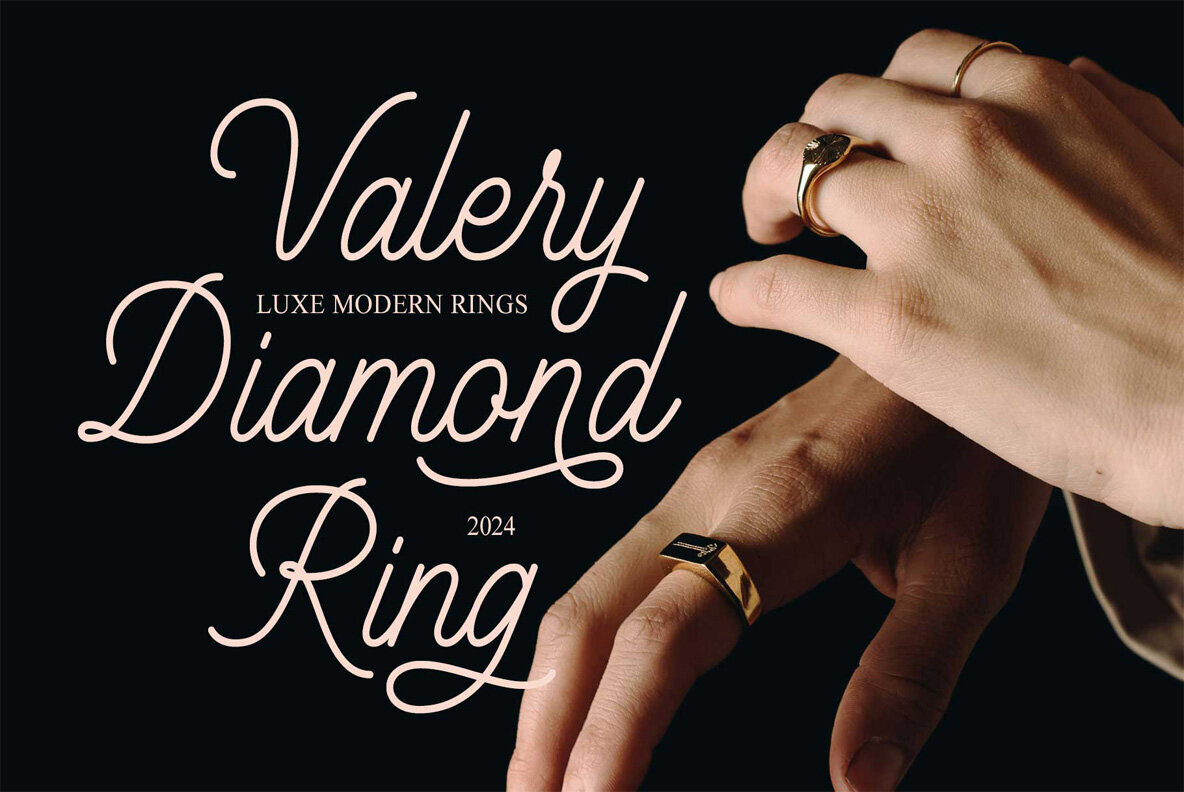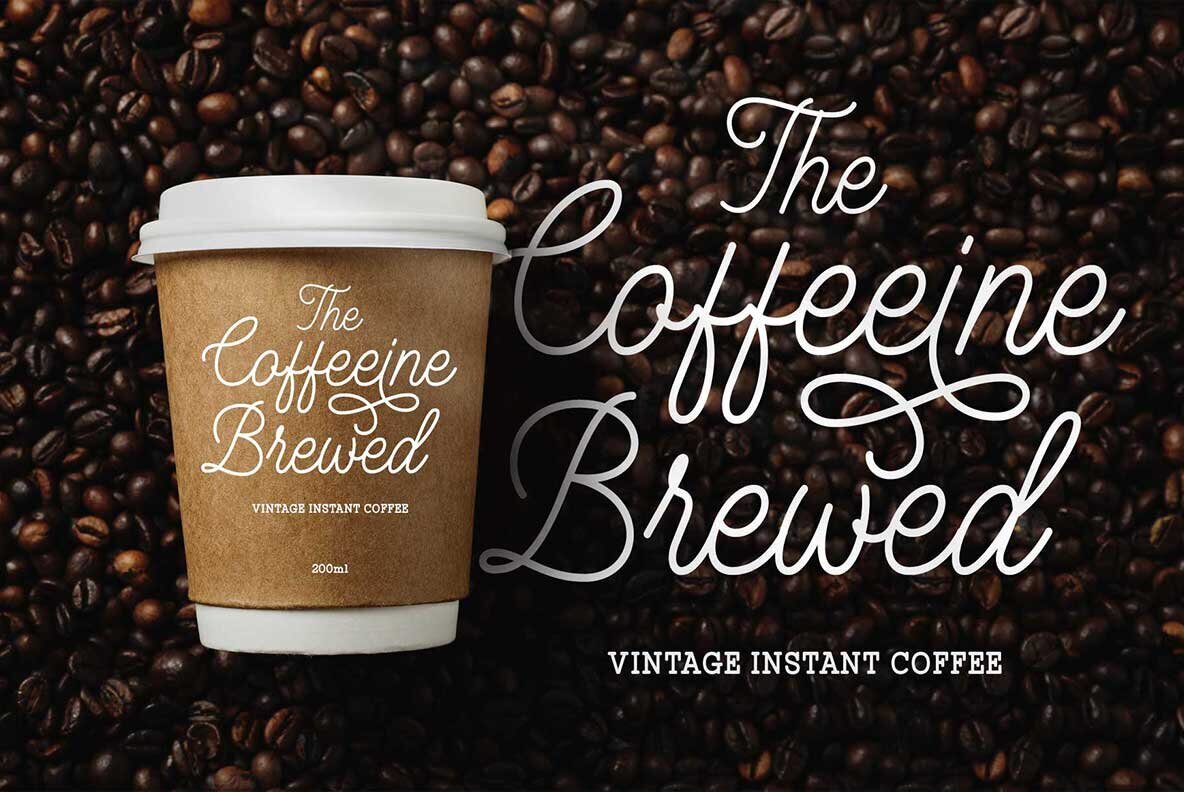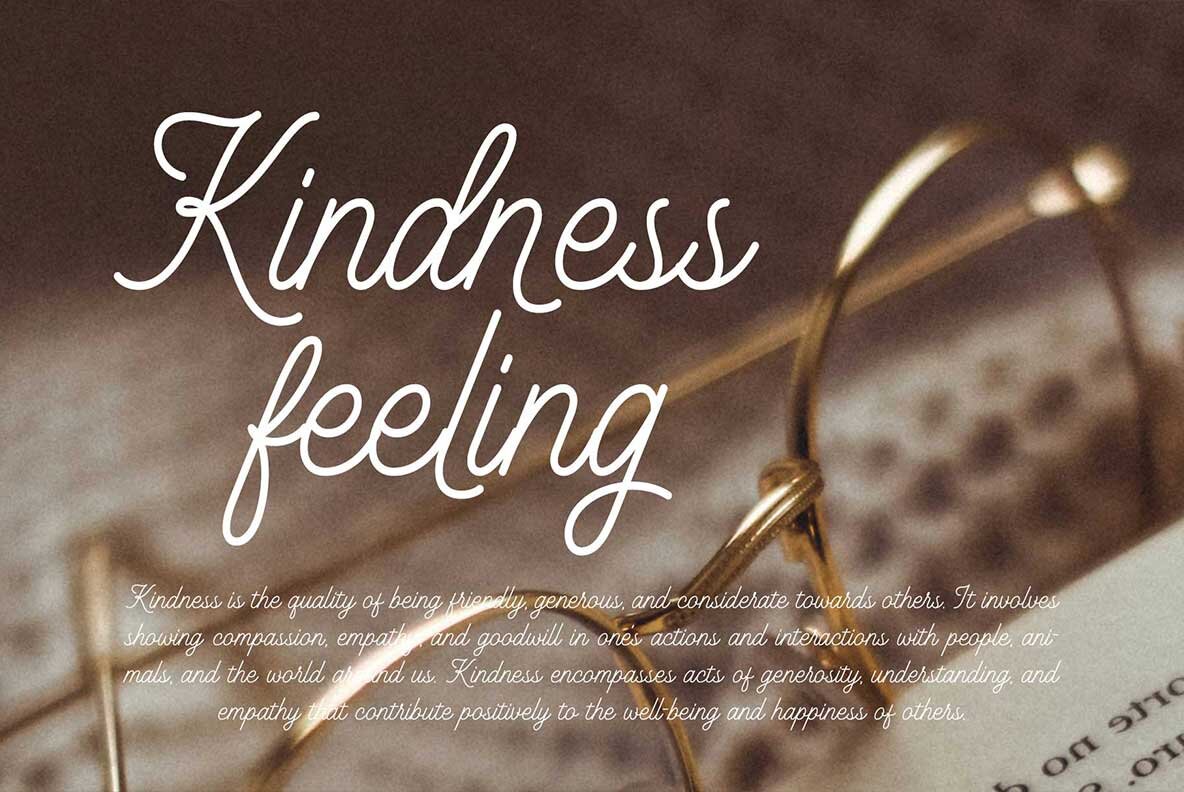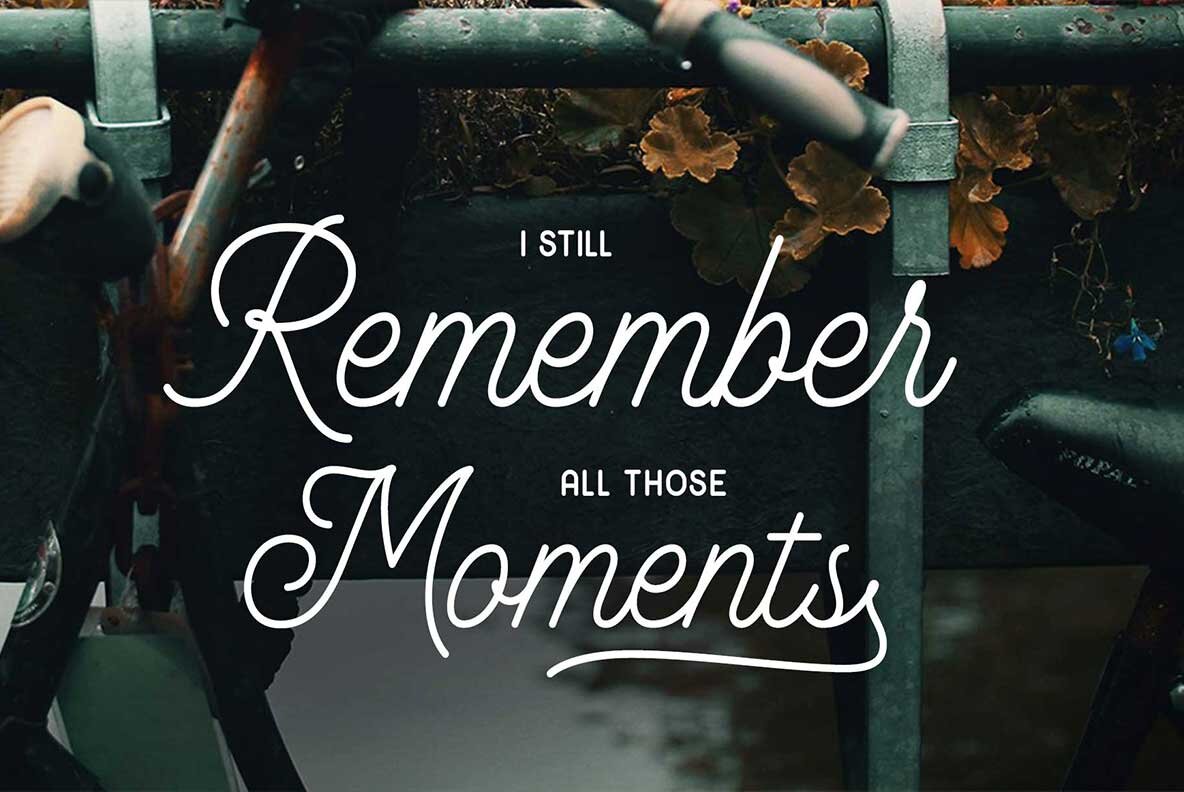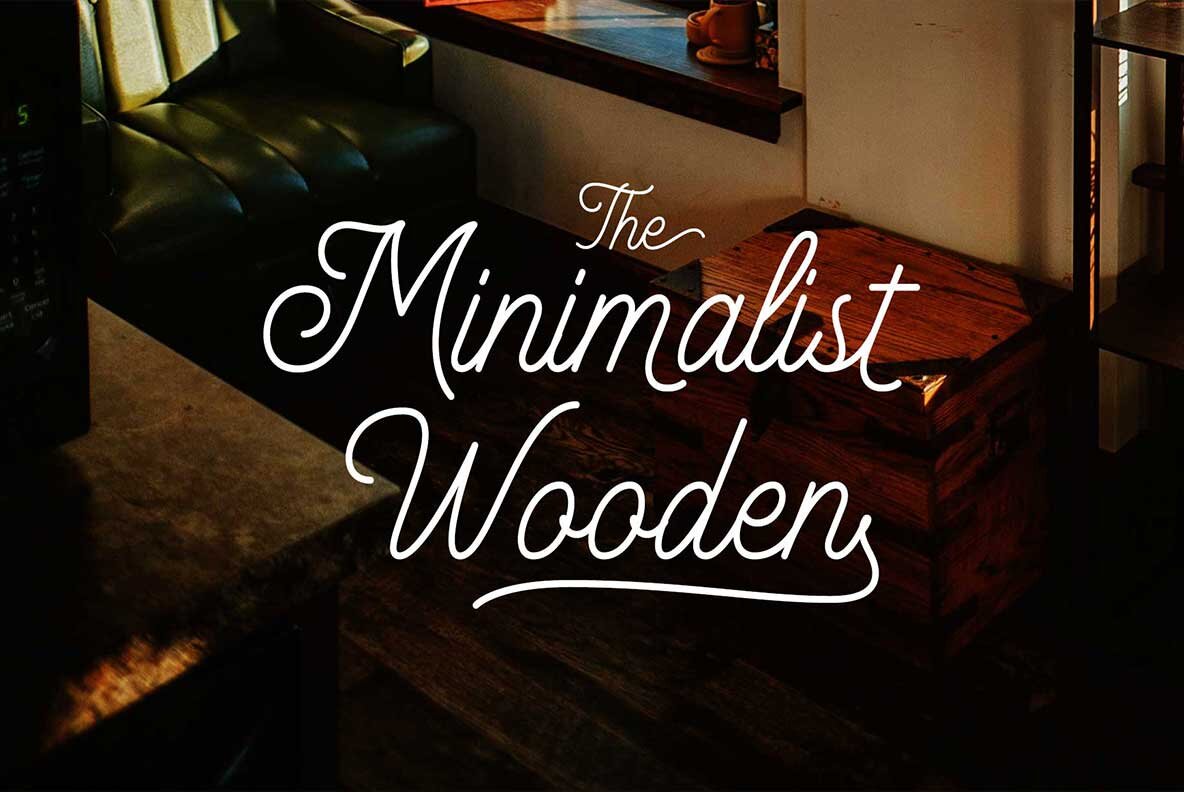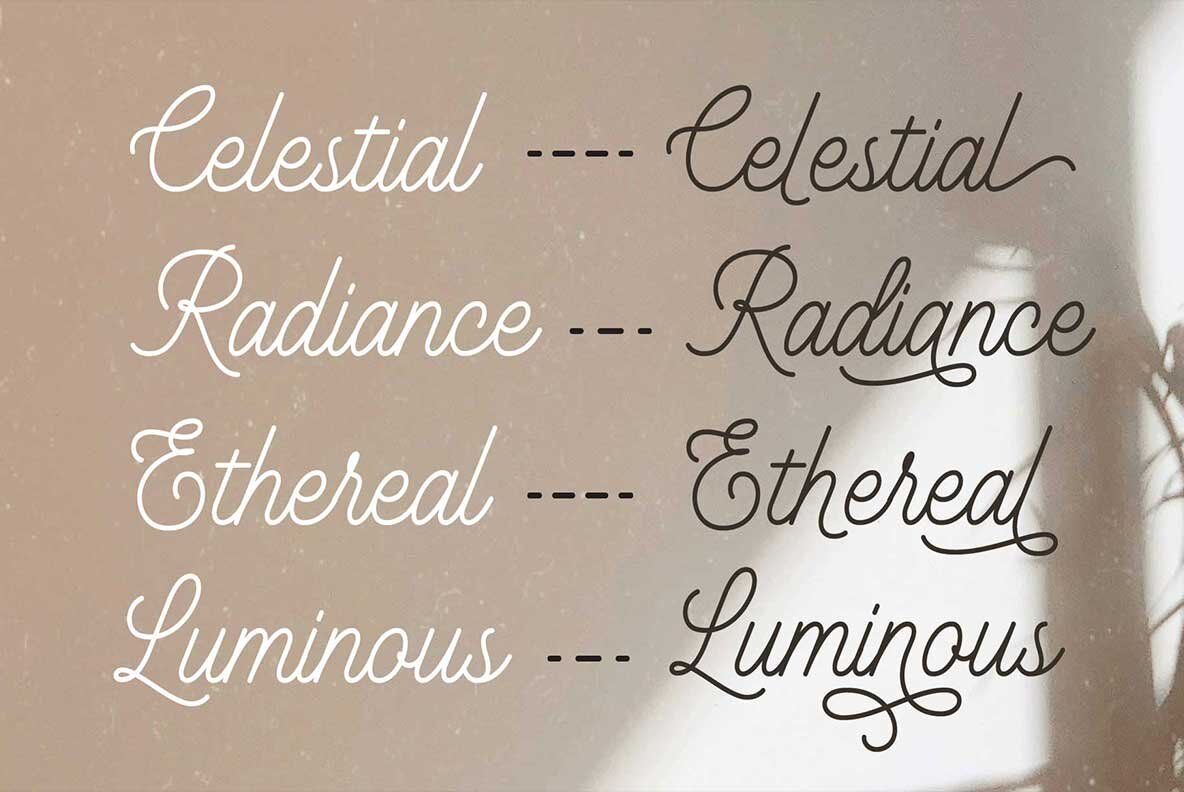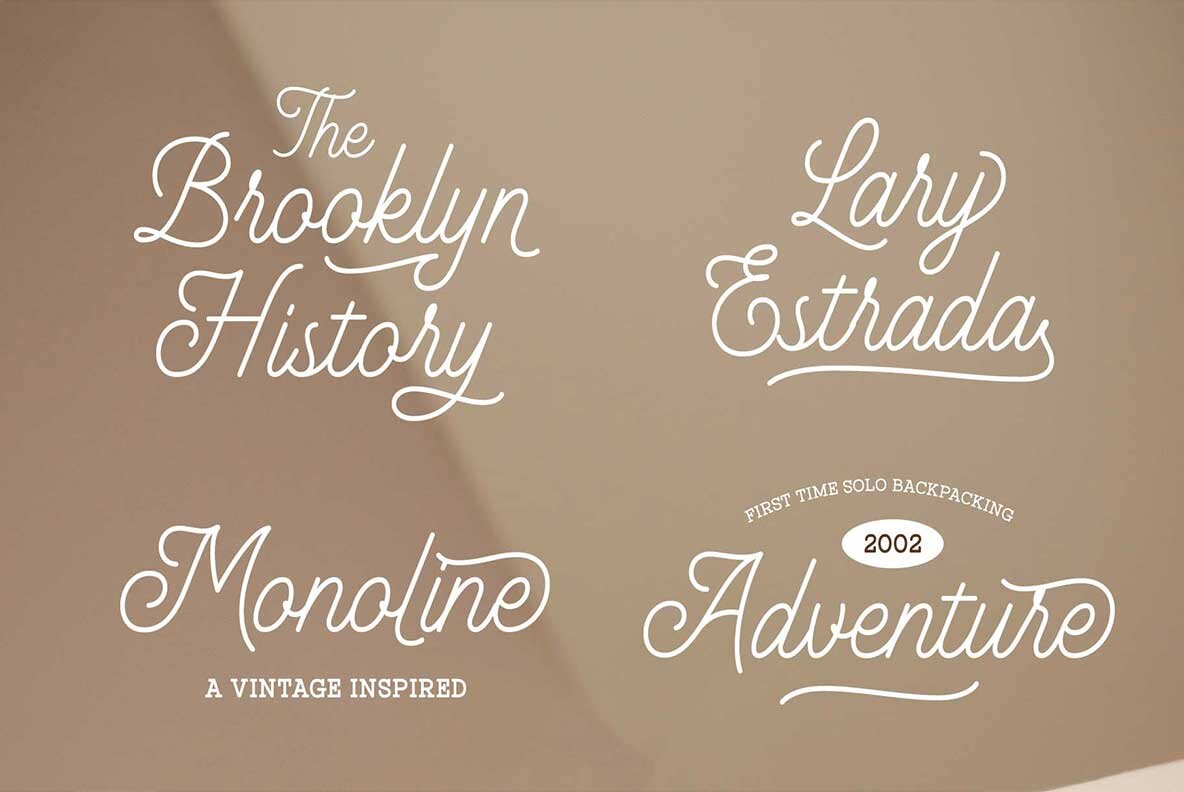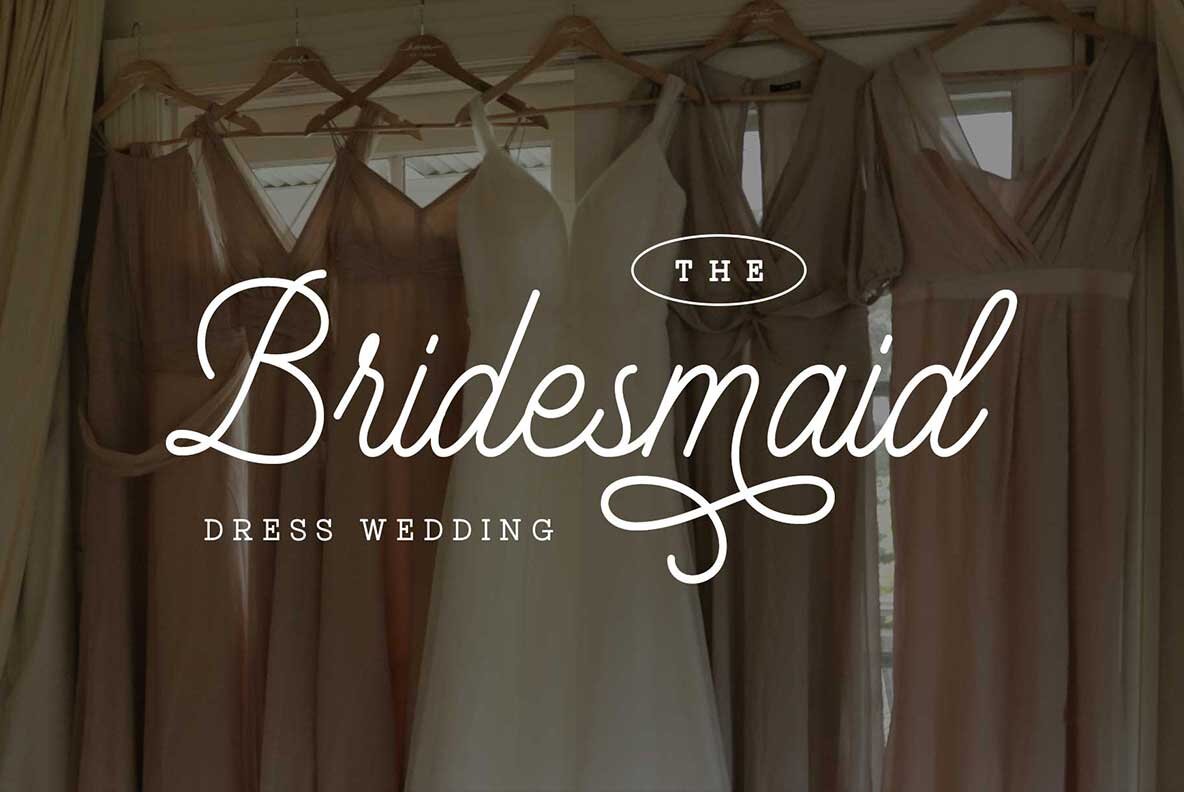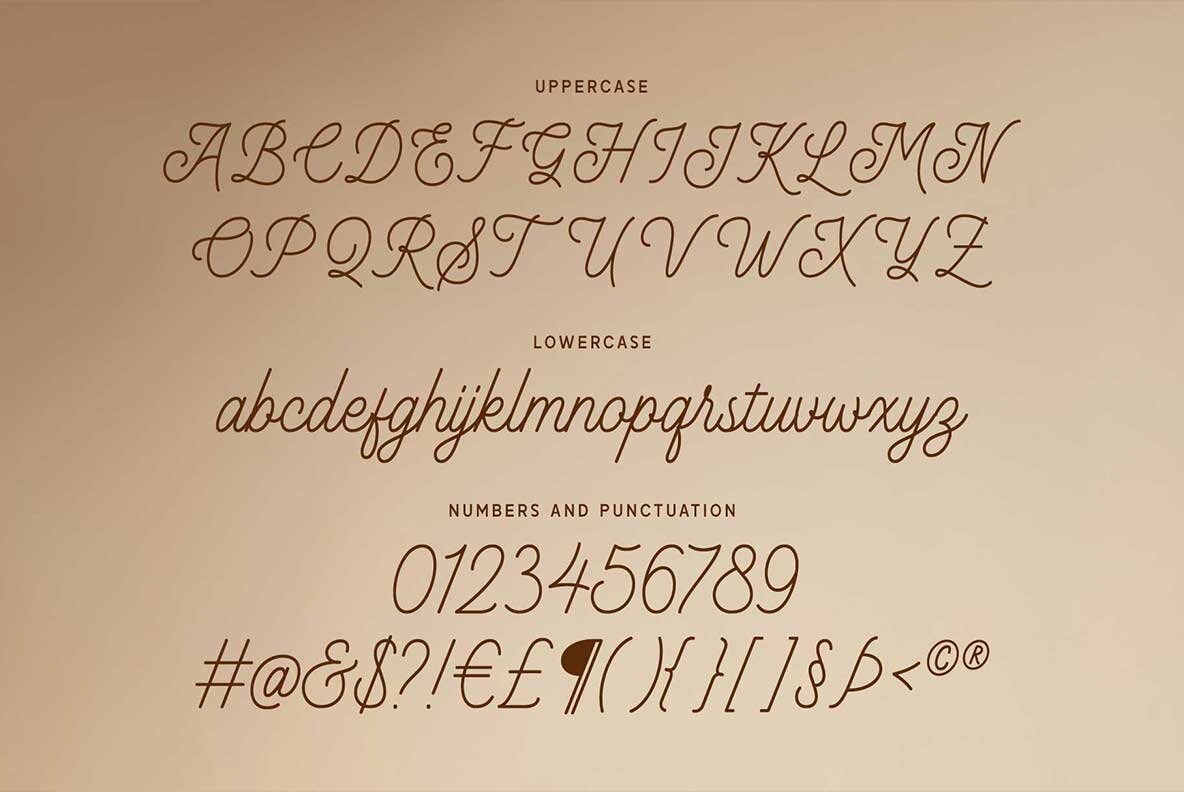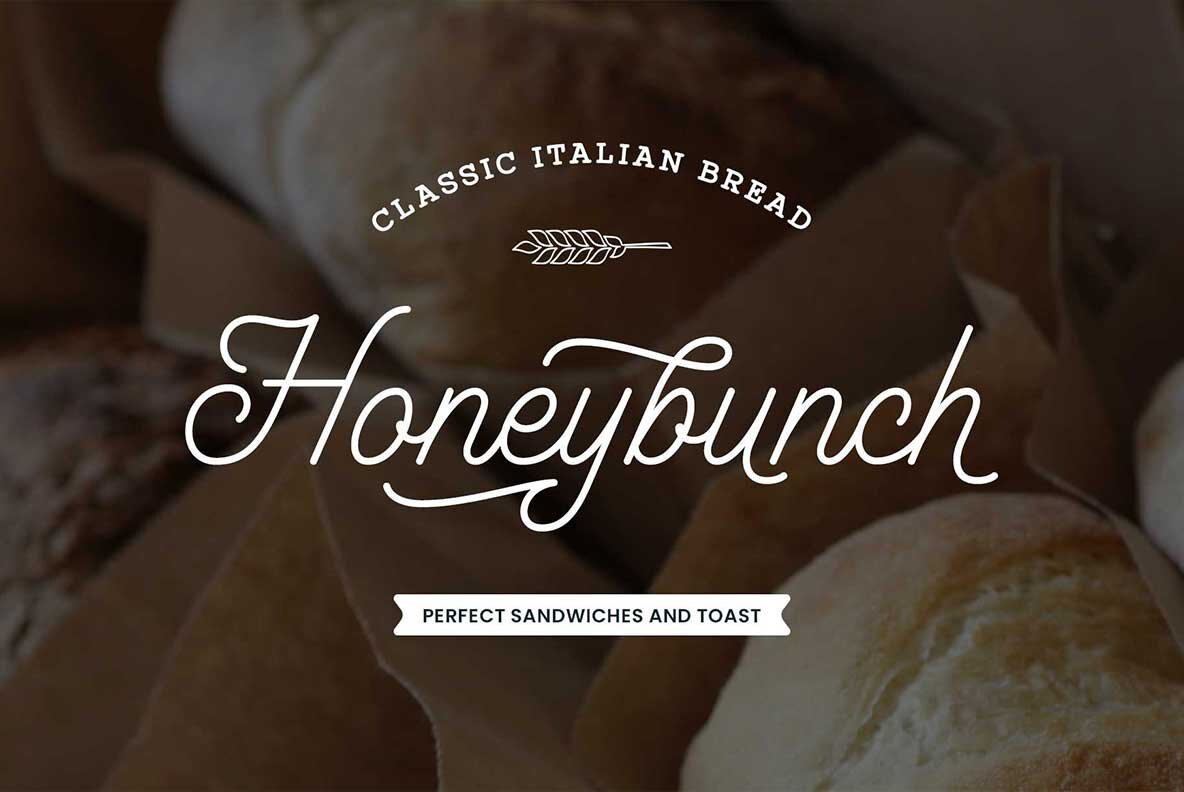
Leonaley Font
Leonaley Regular
Leonaley is a minimalist monoline font that captures elegance through its thin strokes and rich swirls, allowing it to adapt to a wide range of design styles. Its unique aesthetic brings forth a dramatic flair suitable for various media applications. Leonaley offers a sweet, clean, and elegant visual impression, making it an ideal choice for weddings, quotes, greeting cards, boutiques, logos, labels, neon signs, and more. Its versatility is enhanced by its multilingual support and a variety of alternates and swashes to embellish your designs.Leonaley: A Minimalist Monoline Font with Dramatic Flair
Versatile and Elegant